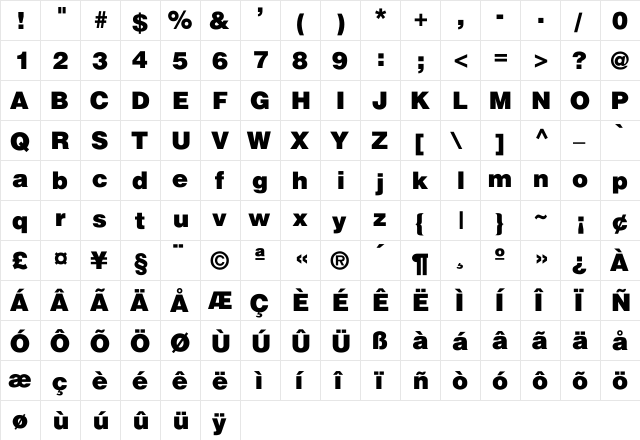
Holland WIDE Regular
Design Context for Holland WIDE Typeface
Holland WIDE takes a measured approach to typography — its balanced proportions and neutral character make it a reliable workhorse for both digital and print work.